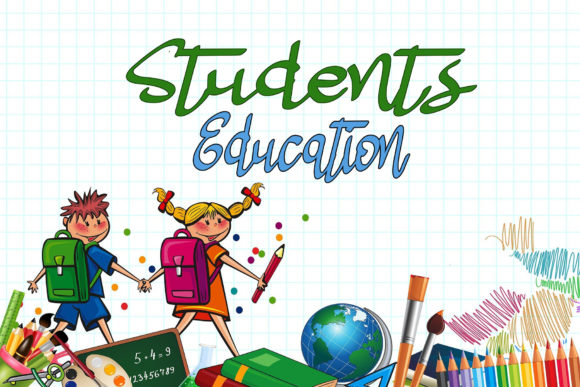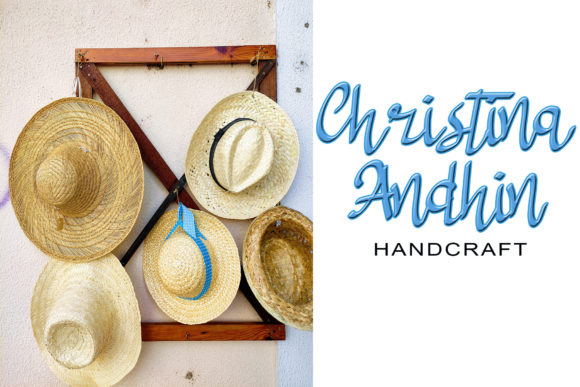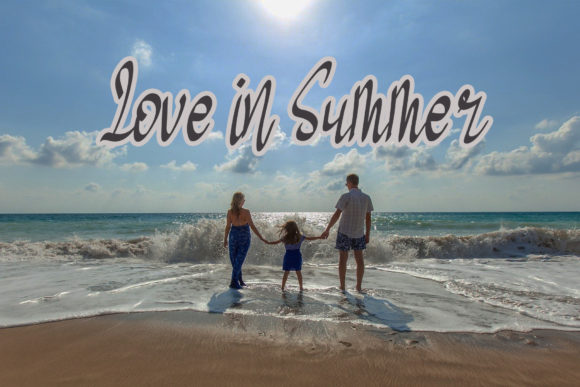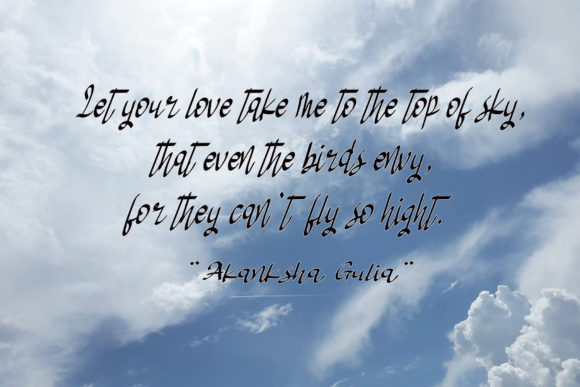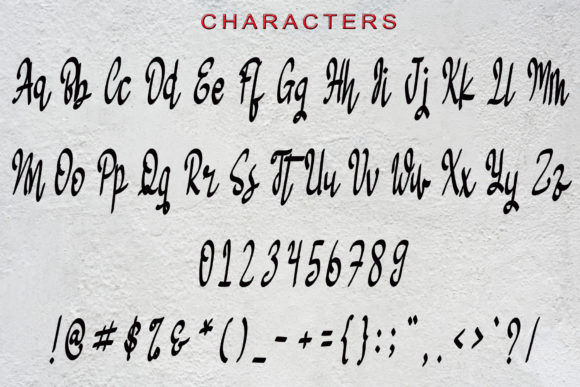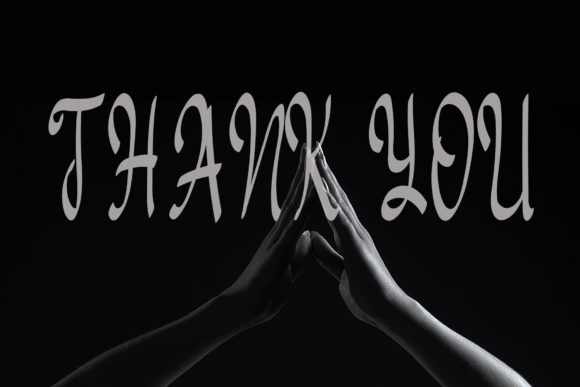
Introducing Beautiful Sky Font: Elevate Your Designs with a Touch of Whimsy
Are you on the hunt for a font that can add a dash of personality to your designs? Look no further than the Beautiful Sky Font! This charming, handwritten font is designed to bring a sense of fun and friendliness to a wide range of projects. In this article, we’ll dive into the world of Beautiful Sky Font, exploring its features, benefits, and uses, and show you why it’s a must-have for designers and crafters alike.
Handwritten fonts have a way of adding a personal touch to any design. They’re perfect for creating a sense of warmth and approachability, making them ideal for projects that require a friendly and inviting tone. The Beautiful Sky Font is no exception. With its flowing, cursive script, this font is sure to capture the hearts of designers and audiences alike.
What Makes Beautiful Sky Font So Special?
So, what sets Beautiful Sky Font apart from other fonts out there? Here are just a few of its standout features:
- Simple and Elegant: Beautiful Sky Font boasts a simple, yet elegant design that’s perfect for a wide range of projects, from branding and packaging to social media graphics and more.
- Flowing Script: The font’s flowing script gives it a sense of movement and fluidity, making it perfect for creating eye-catching headlines and titles.
- Adaptable: Whether you’re working on a digital project or a print design, Beautiful Sky Font is versatile enough to adapt to any style or format.
- Fun and Friendly: This font’s playful, whimsical vibe makes it perfect for projects that require a lighthearted and approachable tone.
Uses for Beautiful Sky Font
The possibilities are endless when it comes to using Beautiful Sky Font. Here are just a few ideas to get you started:
- Branding and Packaging: Use Beautiful Sky Font to create eye-catching logos, labels, and packaging that stands out on store shelves.
- Social Media Graphics: Add a touch of personality to your social media posts and stories with this font’s fun and friendly vibe.
- Invitations and Stationery: Create beautiful, one-of-a-kind invitations, greeting cards, and stationery that showcase your personal style.
- Web Design: Use Beautiful Sky Font to add a touch of whimsy to your website’s design, from headings and titles to blog posts and more.
Tips for Using Beautiful Sky Font
To get the most out of Beautiful Sky Font, here are a few tips to keep in mind:
- Mix and Match: Combine Beautiful Sky Font with other fonts to create a unique and eye-catching design.
- Play with Size: Experiment with different font sizes to create visual interest and hierarchy in your design.
- Color Matters: Choose colors that complement the font’s playful and whimsical vibe, such as bright and pastel shades.
In conclusion, Beautiful Sky Font is a versatile and charming handwritten font that’s perfect for designers and crafters looking to add a touch of personality to their projects. With its flowing script, simple design, and fun and friendly vibe, this font is sure to elevate your designs and capture the hearts of your audience. So why wait? Download Beautiful Sky Font today and start creating beautiful, one-of-a-kind designs that stand out from the crowd!